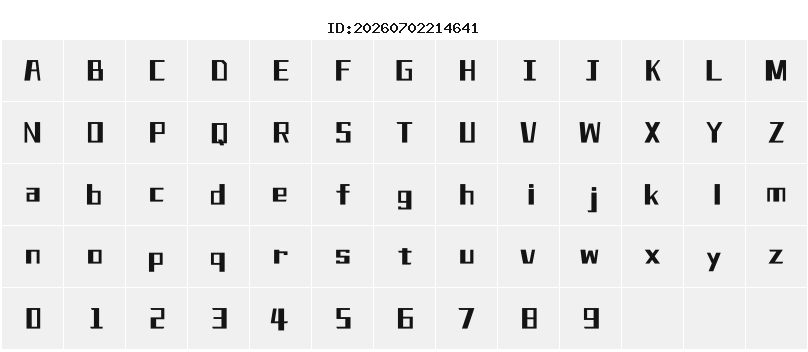
041-上首山川体 Preview
• Font Name: 041-上首山川体
• Font ID: 041-SSShanChuanTi:Version 6.00
• Full Font Name: 041-上首山川体
• Version: Version 6.00 July 1, 2021
• PostScript Name: 041-SSShanChuanTi
• Character Count: 7569
• Manufacturer: 上首造字
About 041-上首山川体.ttf
041-上首山川体.ttf is a modern, elegant sans-serif font designed for ultimate readability and visual harmony. Perfect for branding, headlines, web design, and print materials.